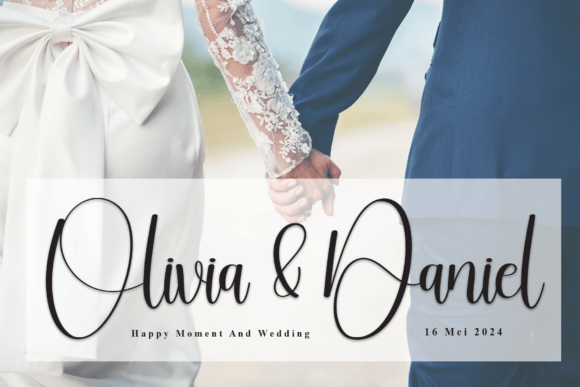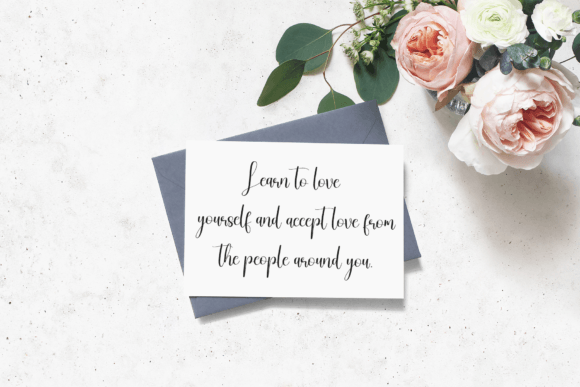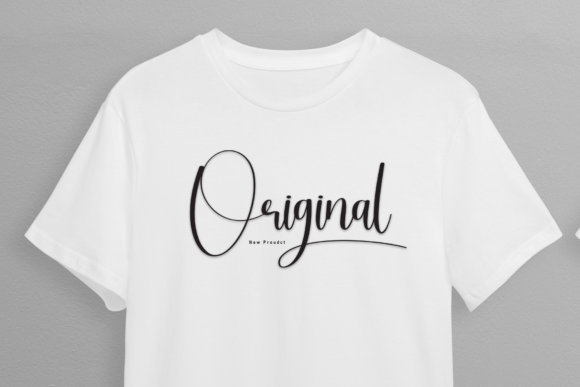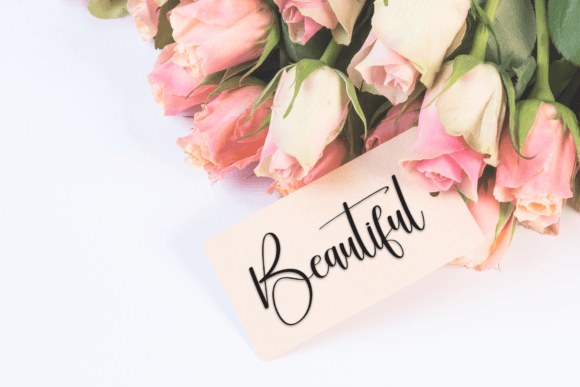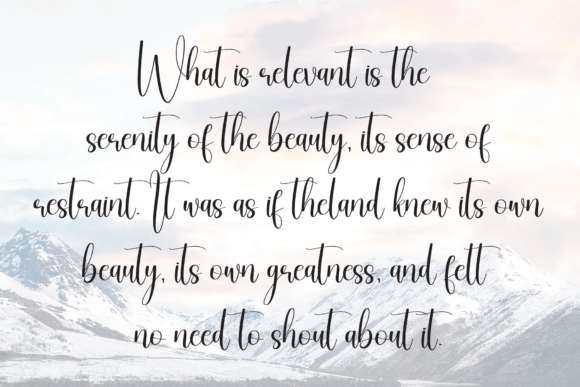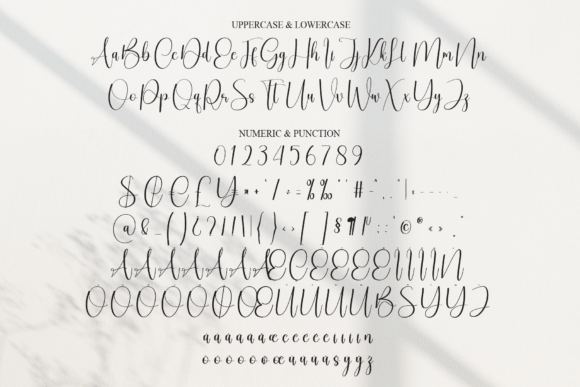
Introduction to Montage Signature Font
The Montage Signature font is a stylish and elegant typeface designed for adding a touch of sophistication to your projects.
Its sleek lines and graceful curves make it perfect for anything from invitations to logos, giving your designs a polished and professional look .
Key Features of Montage Signature Font